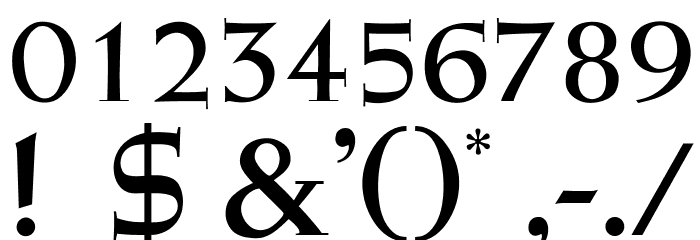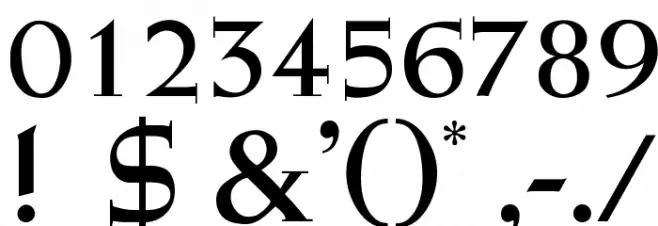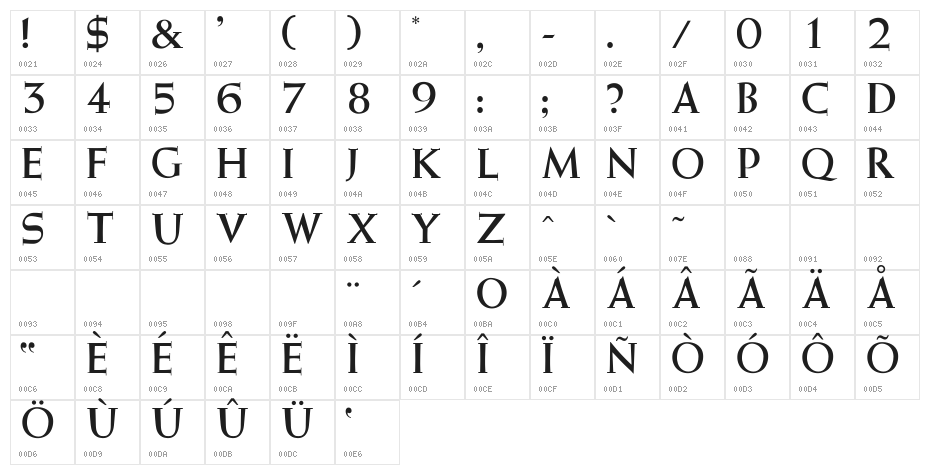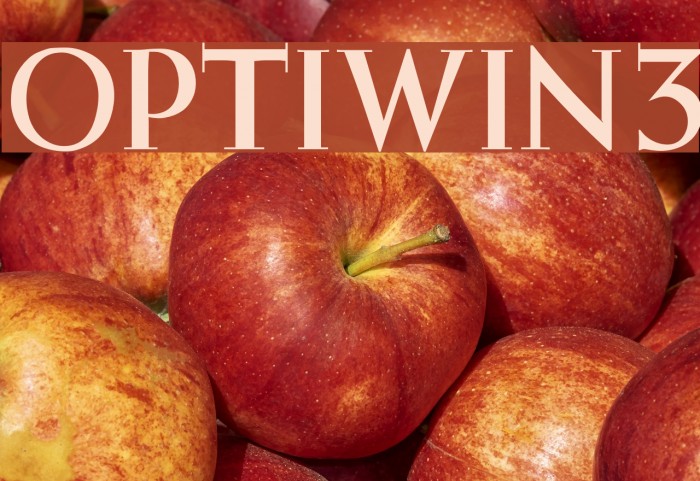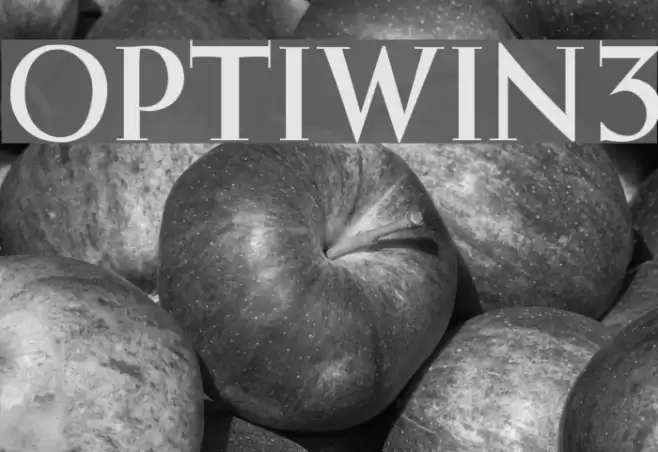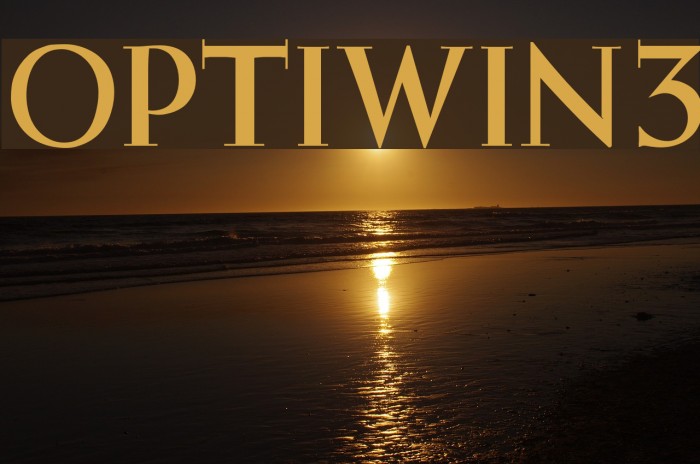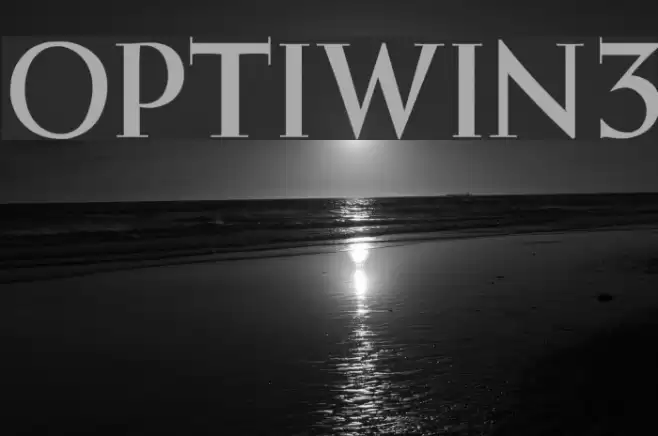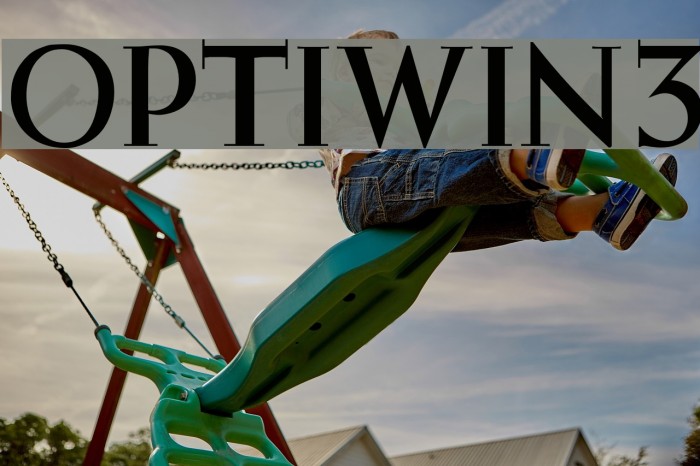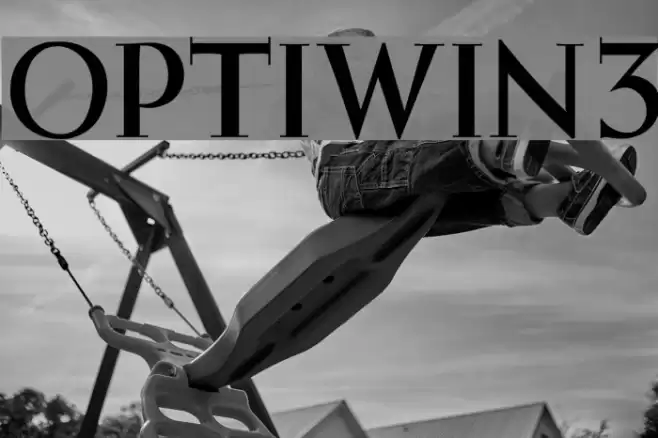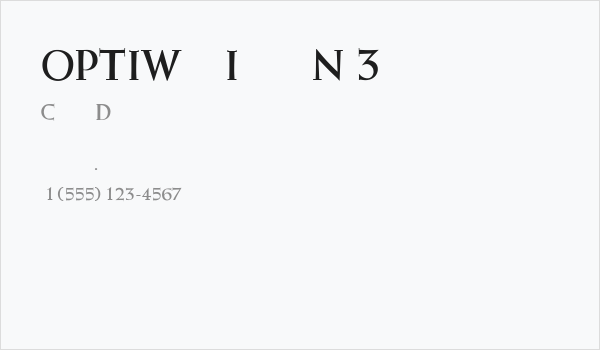
OPTIWeissInitialsNo3 Font
OPTIWeissInitialsNo3 Description
This font features a classic serif design with a strong presence and elegant curves. The uppercase letters are bold and commanding, with sharp serifs that add a touch of sophistication. The lowercase letters maintain a consistent style, offering a harmonious blend with the uppercase. The numerals are clear and distinct, making them easily readable. Special characters are well-integrated, maintaining the overall aesthetic of the font. The design is versatile, suitable for both formal and creative applications, providing a timeless appeal that can enhance any project.
| Use Case | Headlines, Logos, Editorial design |
| Proposed Projects | Ideal for book covers, formal invitations, branding, and editorial design. |